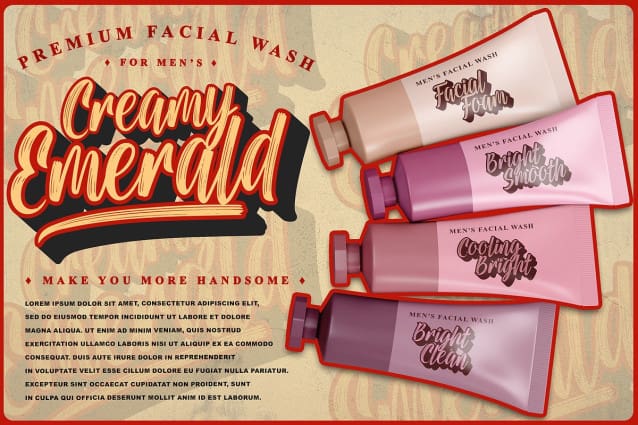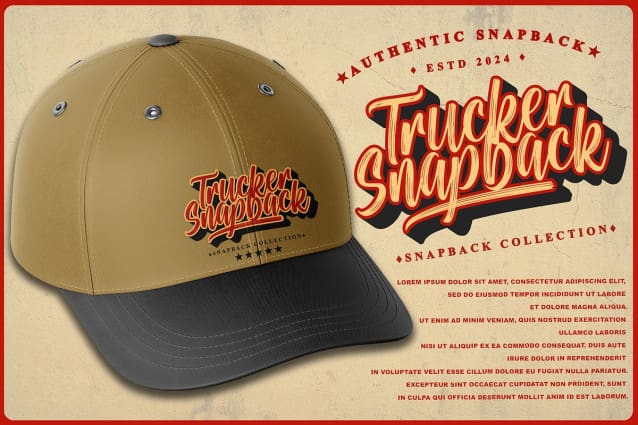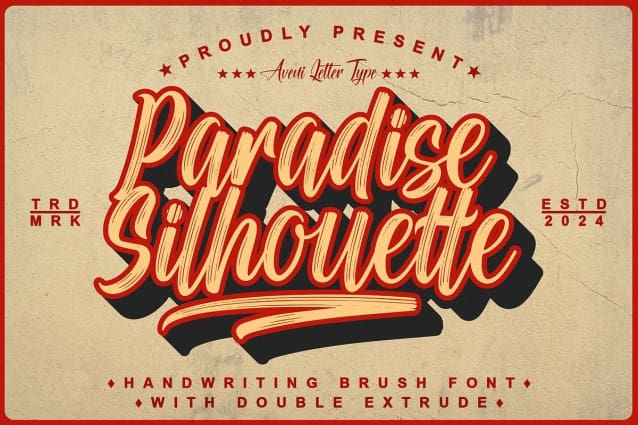
Paradise Silhouette Font
Paradise Silhouette font, a handwritten typeface using rough brush and I have two families namely extrude 1 as outline and extrude 2 as emboss. This font has some patterns and strokes (PUA Encoded) that you can use to decorate this font to make it more attractive in the projects you are working on. This font is also very suitable for many different big projects such as clothing branding, food branding, branding your company/store name, cosmetics branding, used for your website projects, wedding invitations, business cards and many more that you can use from this font for your big projects.